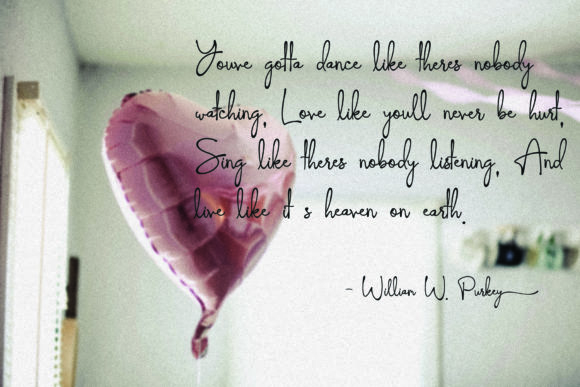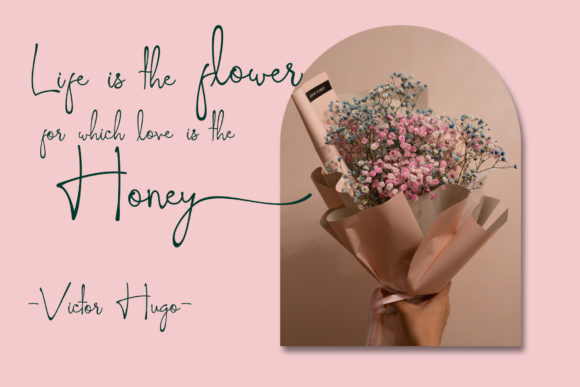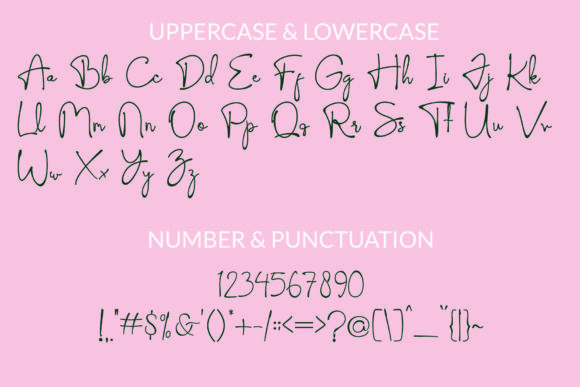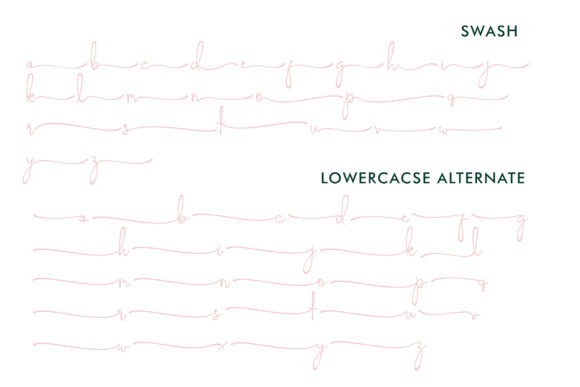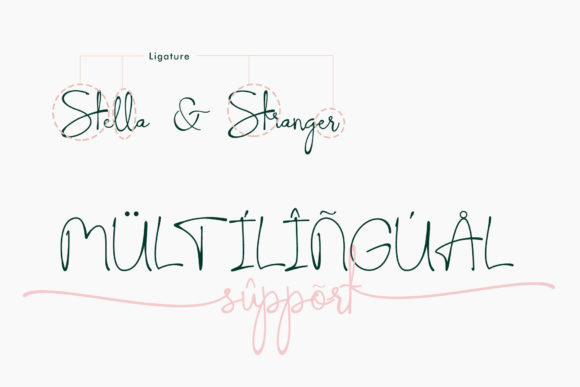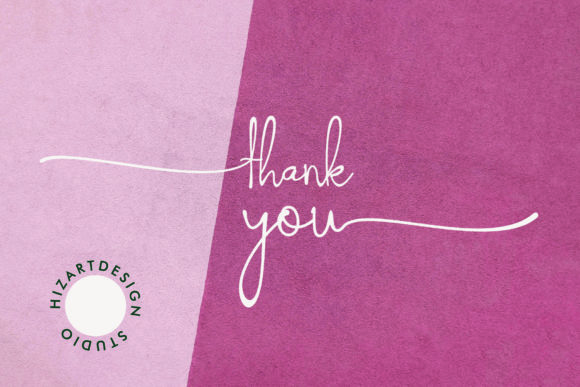
Discover the Elegance of Body & Soul Font: Elevate Your Designs with this Stunning Script Font
Are you on the hunt for a font that exudes elegance, sophistication, and romance? Look no further than the Body & Soul font, a thin lettered and graceful script font that is sure to captivate your audience. With its ravishing style, this beautiful font is perfect for creating stunning wedding invitations, gorgeous stationery art, eye-catching social media posts, and so much more.
Unleash Your Creativity with Body & Soul Font
Body & Soul font is designed to help you take your designs to the next level. Its thin, flowing lines and delicate curves make it an ideal choice for a wide range of projects, from wedding and event planning to branding and marketing. Whether you’re a designer, crafty DIY enthusiast, or social media influencer, this font is sure to inspire your creativity and leave a lasting impression on your audience.
What Makes Body & Soul Font So Special?
So, what sets Body & Soul font apart from other script fonts on the market? Here are just a few of its standout features:
- Thin Lettered and Graceful Design: Body & Soul font boasts a delicate, refined design that is perfect for creating elegant and sophisticated text.
- PUA Encoded: This font is PUA (Private Use Area) encoded, which means you can easily access all of the glyphs and swashes with ease. This makes it simple to customize your text and add your own personal touch.
- Versatile and Flexible: Body & Soul font can be used for a wide range of projects, from digital designs to print materials.
Endless Design Possibilities with Body & Soul Font
With Body & Soul font, the design possibilities are endless. Here are just a few ideas to get you started:
- Wedding Invitations: Create stunning wedding invitations, save-the-date cards, and thank-you notes that will leave your guests in awe.
- Stationery Art: Design beautiful stationery sets, including notecards, journals, and letterheads, that showcase your personal style.
- Social Media Posts: Elevate your social media game with eye-catching posts, quotes, and graphics that are sure to grab attention.
- Branding and Marketing: Use Body & Soul font to create elegant and sophisticated branding materials, including logos, business cards, and brochures.
Tips and Tricks for Getting the Most Out of Body & Soul Font
To help you get the most out of Body & Soul font, here are a few tips and tricks to keep in mind:
- Experiment with Different Sizes and Colors: Don’t be afraid to play around with different font sizes and colors to find the perfect combination for your design.
- Mix and Match with Other Fonts: Body & Soul font pairs beautifully with other fonts, so don’t be afraid to experiment with different combinations.
- Use Swashes and Glyphs to Add Personality: Take advantage of the font’s PUA encoding to add custom swashes and glyphs to your text.
In conclusion, Body & Soul font is a stunning script font that is sure to elevate your designs and leave a lasting impression on your audience. With its thin, flowing lines, delicate curves, and PUA encoding, this font offers endless possibilities for creative expression. Whether you’re a designer, crafty DIY enthusiast, or social media influencer, Body & Soul font is the perfect choice for anyone looking to add a touch of elegance and sophistication to their designs.